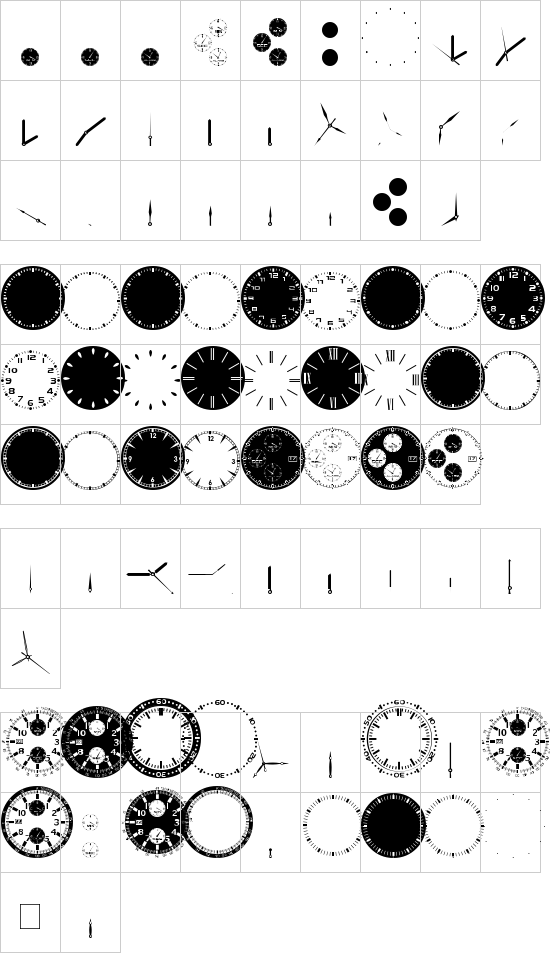
GA Clock Dial Round
About GA Clock Dial Round
GA Clock Dial Round is a dingbat font built around clock face and dial symbols rather than letters. Each key delivers a timepiece graphic, from full dials to decorative hands and markers, ready to drop straight into a layout. The style is clean and functional, made for visual elements rather than reading.